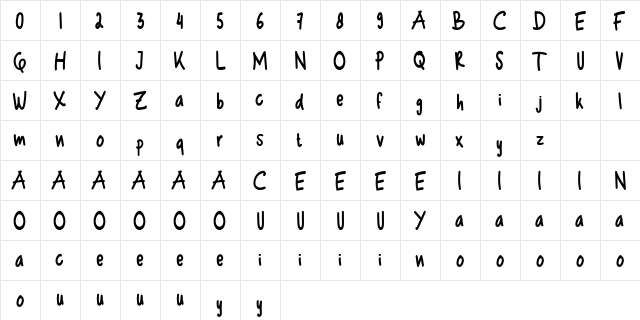
Akabiluru Style Handwritten
| Style | Handwritten |
| Foundry | Alpha's Lettering |
| Designer | Muhammad SI |
Design Context for Akabiluru Style Typeface
Akabiluru Style flows with the natural rhythm of handwritten lettering, making it ideal for designs that call for warmth and personal expression.